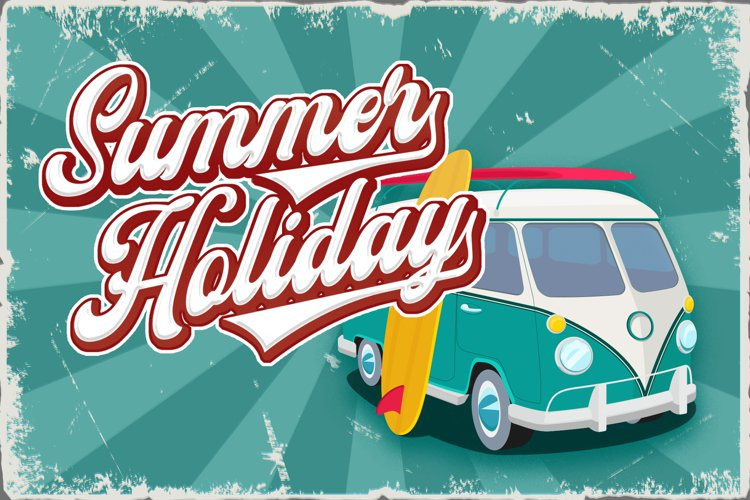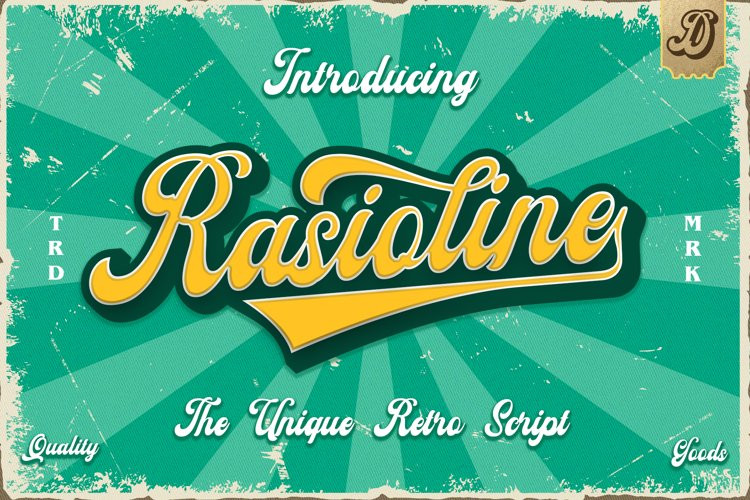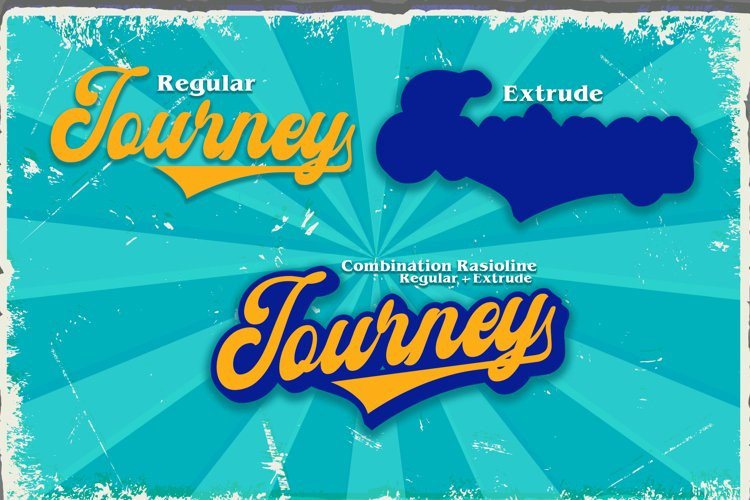
Rasioline Font
Rasioline FontDansdesign Proudly present Rasioline Unique retro font, This font is made with references to various letters that I combine and design with my style.
Rasioline are great and usefull for product logo, poster title, headline, packaging, badge, wedding card logo, clothing brand logo, tshirt design , Vintage design and much more